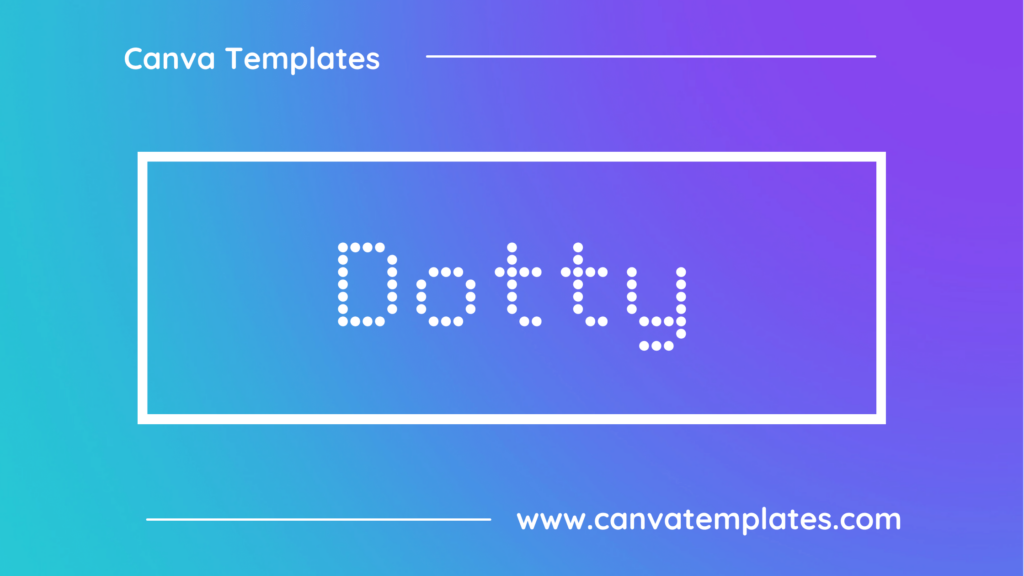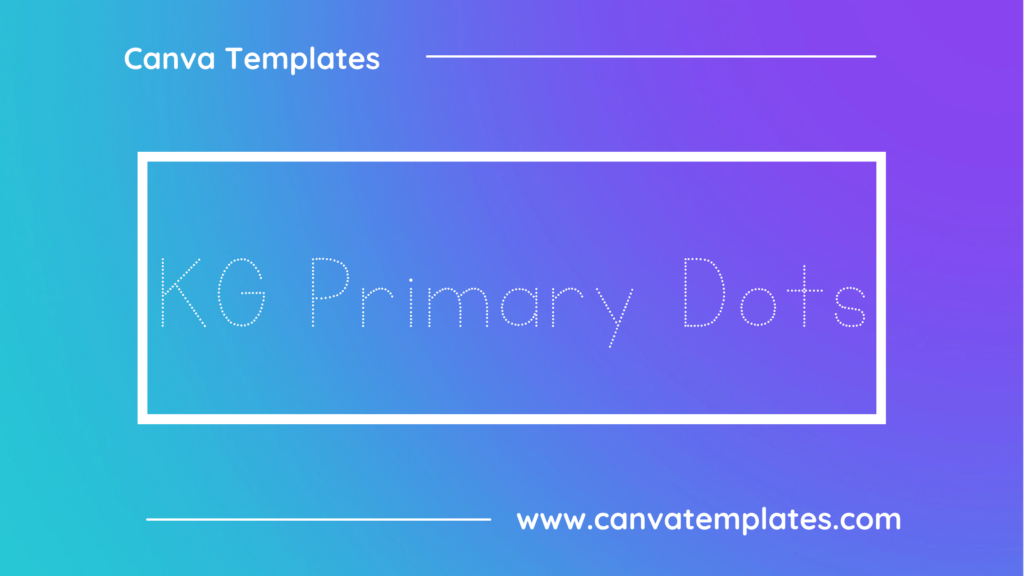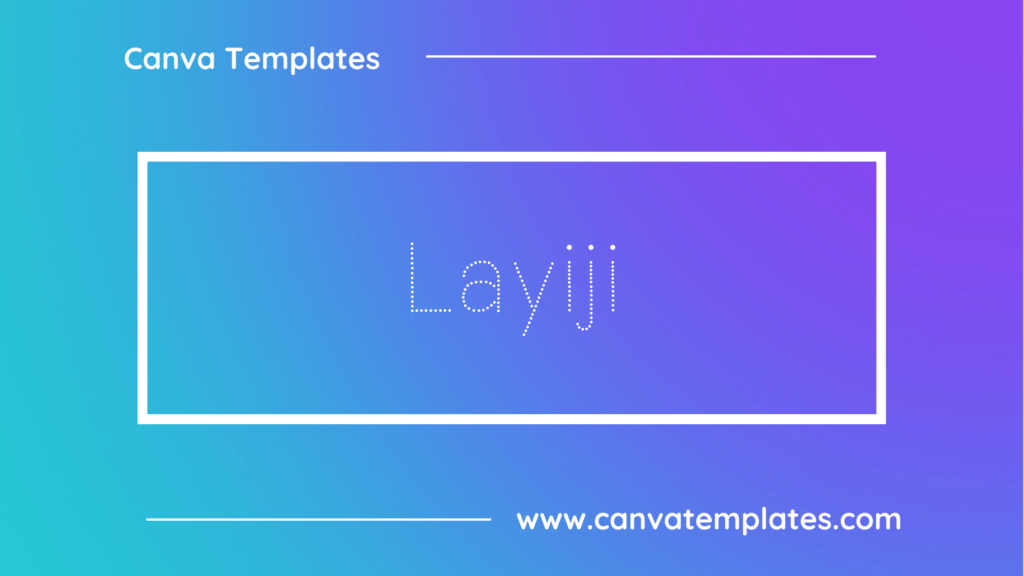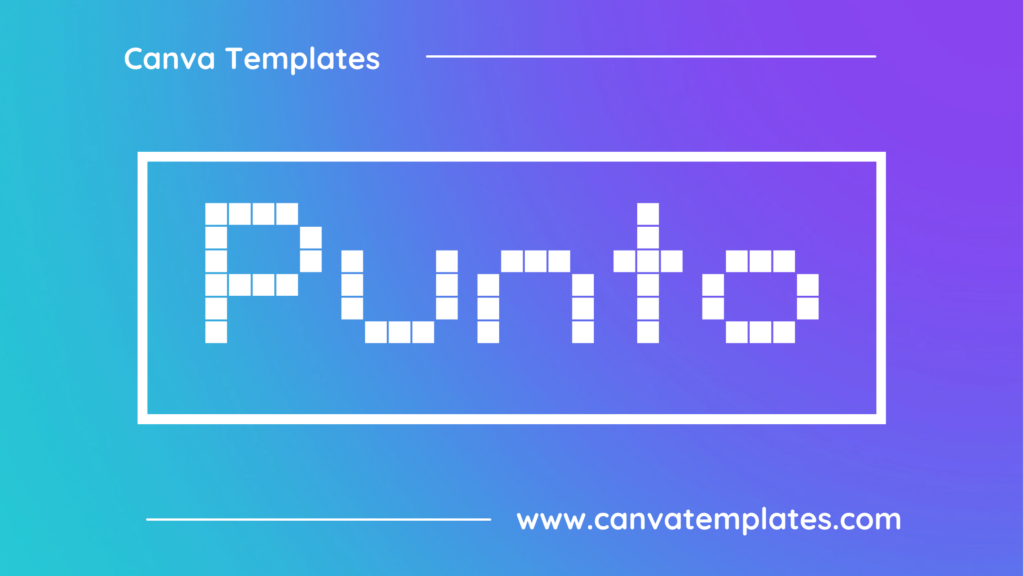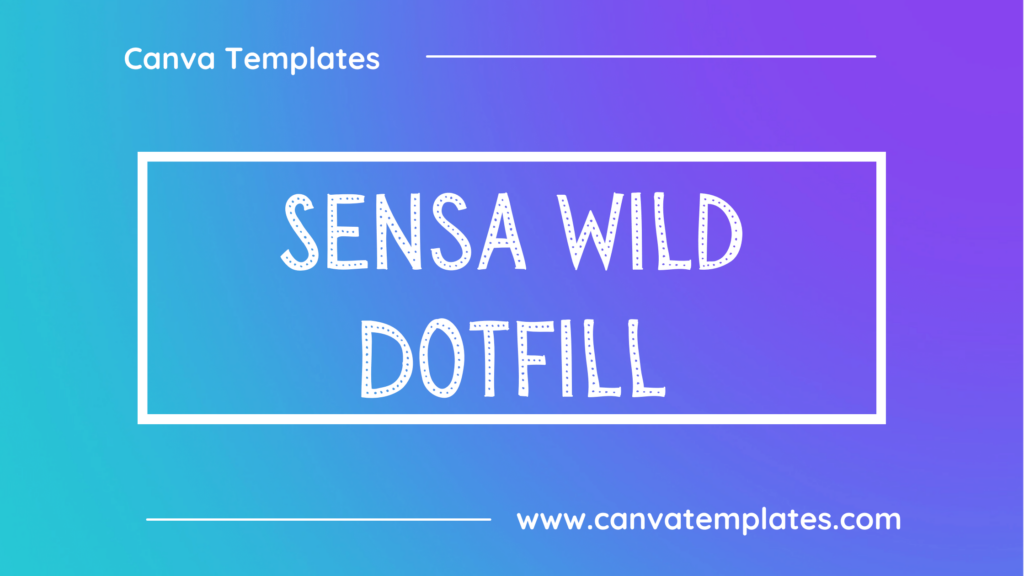
Best Dotted Fonts in Canva
Great graphic design is powered by great font selection. But picking great fonts is a challenge most people. Luckily, Canva has made adding great fonts to your designs much easier. In this tutorial, our team of design experts will cover the best dotted fonts in Canva.
What is a Dotted Font?
Dotted fonts typically share the following characteristics:
1. Dotted outlines: Dot fonts have letterforms that are made up of dots or small circles, forming a dotted outline of the shape of the letter.
2. Minimalist appearance: Dotted fonts often have a minimalist appearance, with simple shapes and forms that are easy to recognize.
3. Limited contrast: Dot fonts have limited contrast between thick and thin strokes, which reinforces their minimalist appearance.
4. High legibility: Dot fonts are typically designed to be highly legible, with clear letterforms that are easy to read even at small sizes.
5. Limited variation: Dot fonts tend to have a limited range of variation in terms of weight and style, as they are intended to be consistent and easily recognizable across different media.
6. Modern appearance: Dot fonts often have a modern appearance that is well-suited for contemporary design and branding.
7. Versatility: Dot fonts are versatile and can be used for a wide range of applications, including body copy, headings, titles, and other types of text. They are often used in design and branding to create a unique and modern look.
Best Canva Dotted Fonts
1. CityLight Dots
CityLight Dots
CityLight Dots is a pixelated font with dots arranged in a pattern resembling a digital clock or LED display. Each character is formed by a grid of dots and is easily recognizable due to the distinctive style. The font is available in various sizes and is suitable for use in digital displays, video games, and other applications where a pixelated font is needed.
2. Dotty
Dotty
Dotty is a pixelated font with a retro style. The characters are made up of small dots, giving it a distinctive 8-bit video game aesthetic. The font is playful and has a fun, nostalgic feel to it.
3. 5Mikrodotz
5Mikrodotz
5Mikrodotz is a pixelated font that features small dots that create a grid-like appearance. The dots are spaced closely together, giving the letters a high-resolution look reminiscent of old-school computer graphics. It is a playful font that is suitable for a variety of design projects, particularly those with a retro or nostalgic theme.
4. Layiji
Layiji
Layiji is a decorative Thai font designed by Cadson Demak, inspired by traditional Thai temple inscription fonts. It features elegant curves, loops and geometric shapes, and is suitable for a variety of creative projects such as branding, packaging, and advertising.
5. Sensa Wild Dotfill
Sensa Wild Dotfill
Sensa Wild Dotfill is a display font that features dots filled with a solid color, creating a unique and playful look. The dots are arranged in a grid pattern and vary in size to add depth and texture to the design. It’s a great choice for adding a fun and whimsical touch to any project.
6. Point
Point
Point is a pixelated font designed to look like characters from retro video games. It features a square, grid-like design with each character consisting of a series of pixels arranged in a specific pattern. It has a distinctive, nostalgic appearance and is often used in designs and projects that aim to evoke a sense of retro gaming culture.
7. Architype Ingenieur Dot
architype ingenieur dot
Architype Ingenieur Dot is a font that is part of a larger family of typefaces called Architype. This particular variation features a dotted pattern overlaid on top of the bold sans-serif letters, creating a unique visual effect. The font is often used for design projects that require a modern, technical, or industrial look.
8. Punto
Punto
Punto is a display sans-serif font with a pixelated design. Its letters are formed by small squares, giving it a unique digital look. The font was designed by Swiss designer Tobias Sommer and is available in both regular and bold weights.
9. KG Primary Dots
KG Primary Dots
KG Primary Dots is a dotted font that is suitable for teaching materials or children’s books. Each letter is enclosed in a circle, giving the font a playful and friendly feel. The font is available in regular and bold versions, and includes basic punctuation and numbers.
10. Stich
Stich
Stitch is a font made of small Xs that form a pattern resembling stitches, creating the appearance of a continuous line made of thread or a series of dots.
11. Raleway Dots
Raleway Dots
Raleway Dots is a sans-serif font with dotted letterforms, adding a unique twist to a Nordic-inspired typeface.